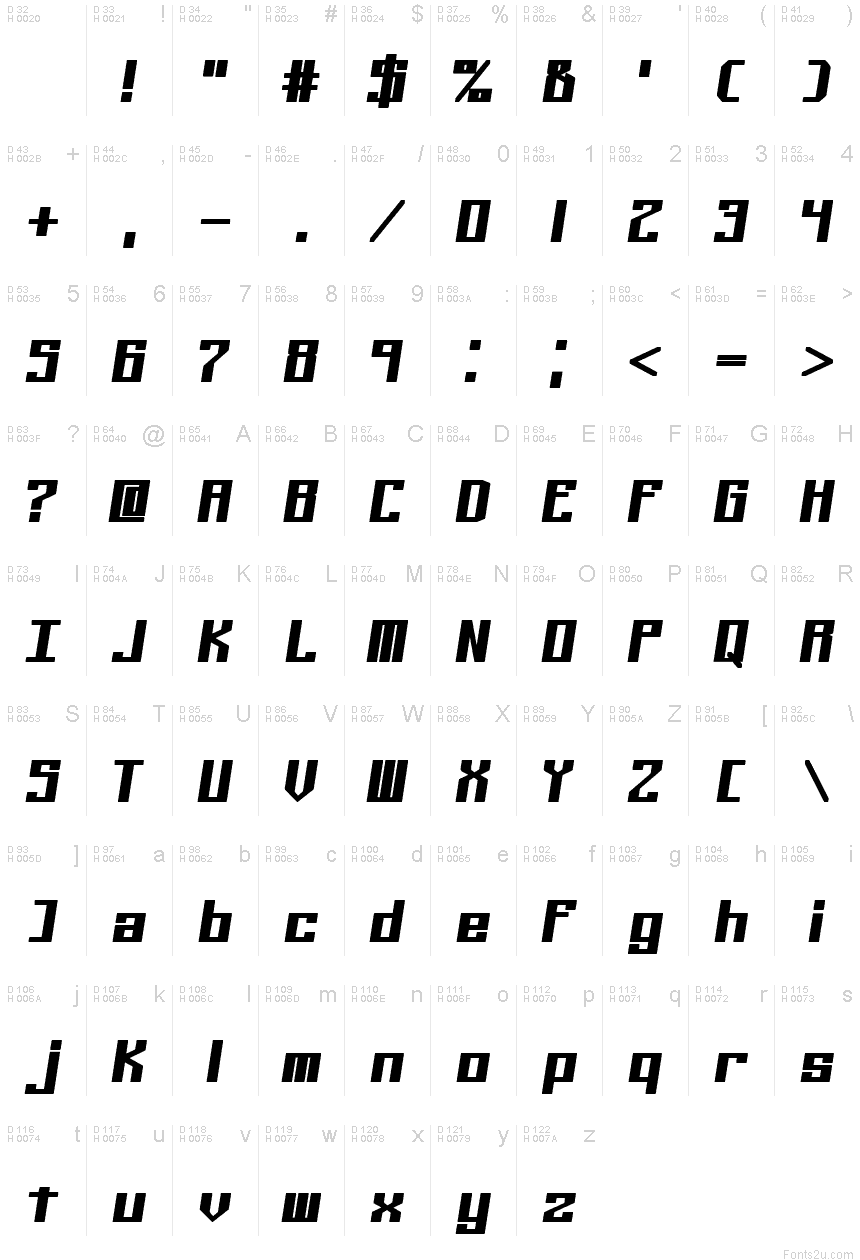
Kaliber Solid (BRK)
Kaliber Solid font by Ænigma Fonts is a free techno display typeface with a bold, slanted stance that looks like it’s already in motion. The chunky, squared forms and sharp diagonals give every word a sense of thrust, as if it’s been stamped in heavy metal and pushed forward. Tight spacing and consistent block shapes create a dense, high-impact texture that reads clearly even at a distance.
Using Kaliber Solid, you can push headlines for sci‑fi posters, gaming titles, esports logos, tech branding, and interface splash screens into a more aggressive, futuristic zone. This free font also works beautifully on album covers and motion graphics where you want text to feel fast and forceful. For balance, pair Kaliber Solid with a clean, neutral sans serif for body copy and let Kaliber handle the big, loud, attention-grabbing lines.